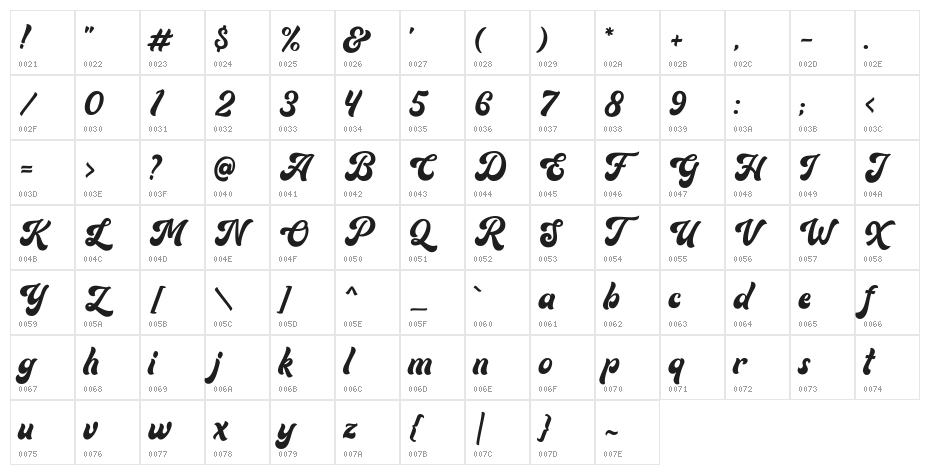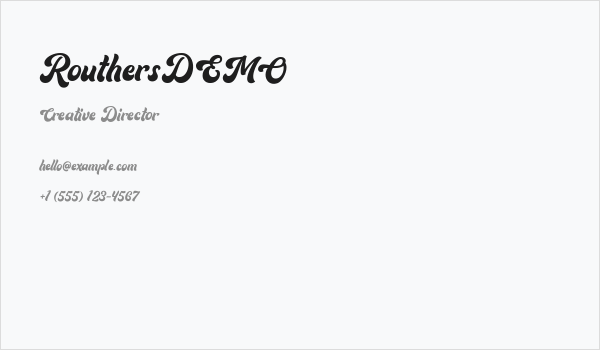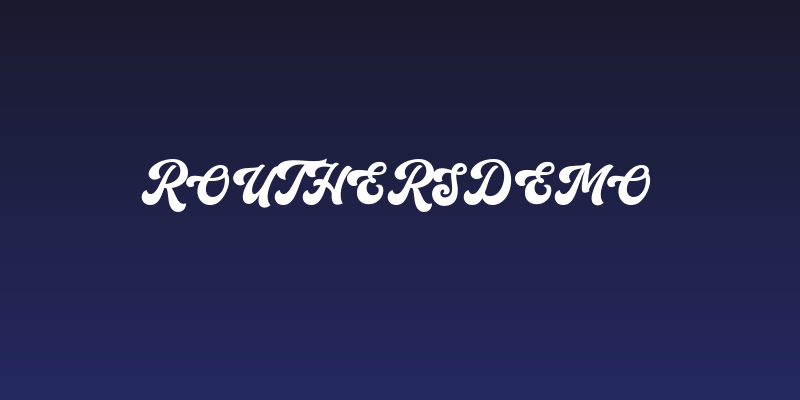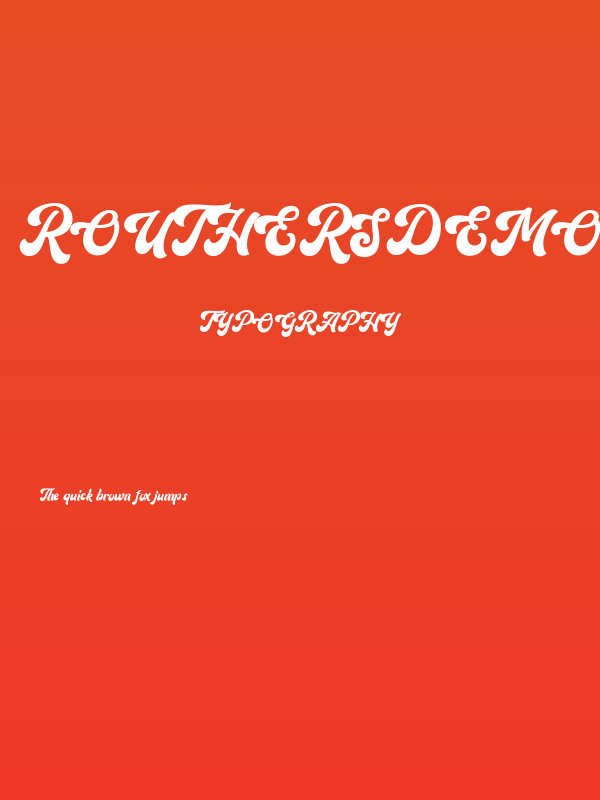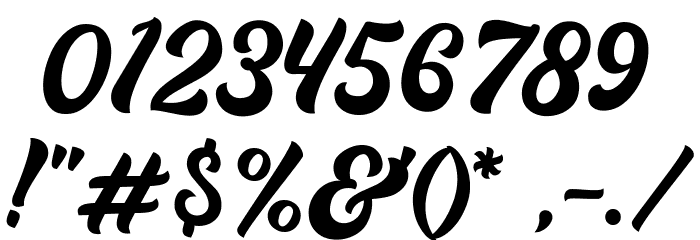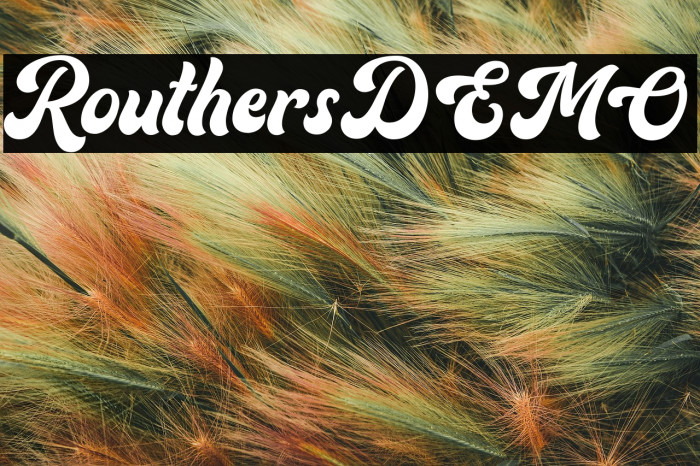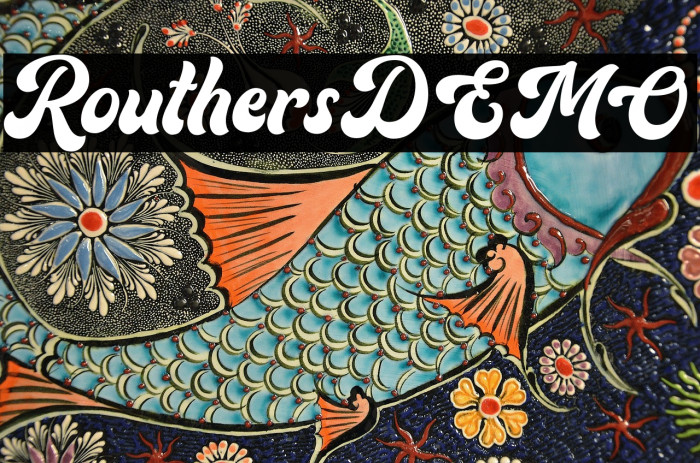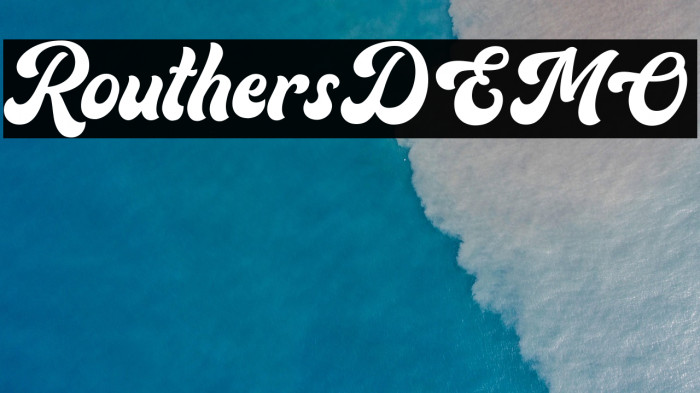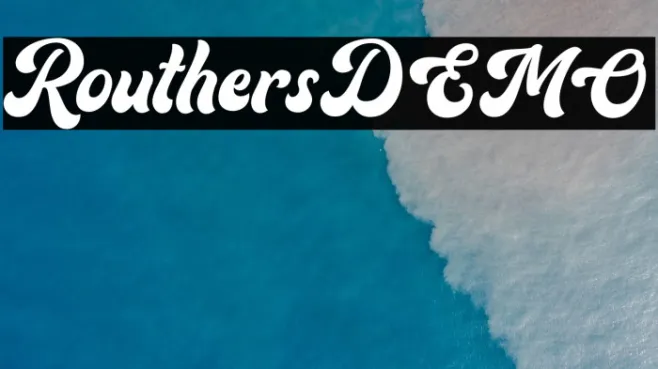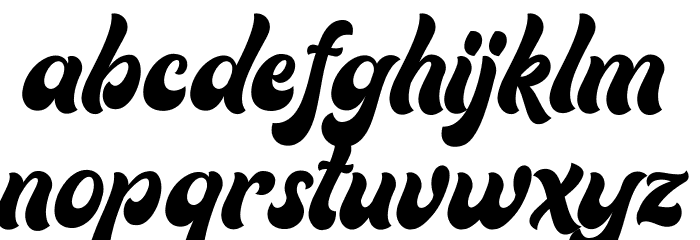
RouthersDEMO Font
RouthersDEMO Description
This font features a bold, flowing script style with a strong emphasis on curves and swashes. The uppercase letters are ornate and connected, giving a sense of elegance and movement. The lowercase letters maintain a consistent weight, with rounded forms that enhance readability. Numbers and special characters are designed to match the overall aesthetic, with a playful yet sophisticated appearance. This font exudes a sense of creativity and flair, making it suitable for various artistic applications.
| Proposed Projects | Ideal for branding, invitations, greeting cards, and decorative headlines. |